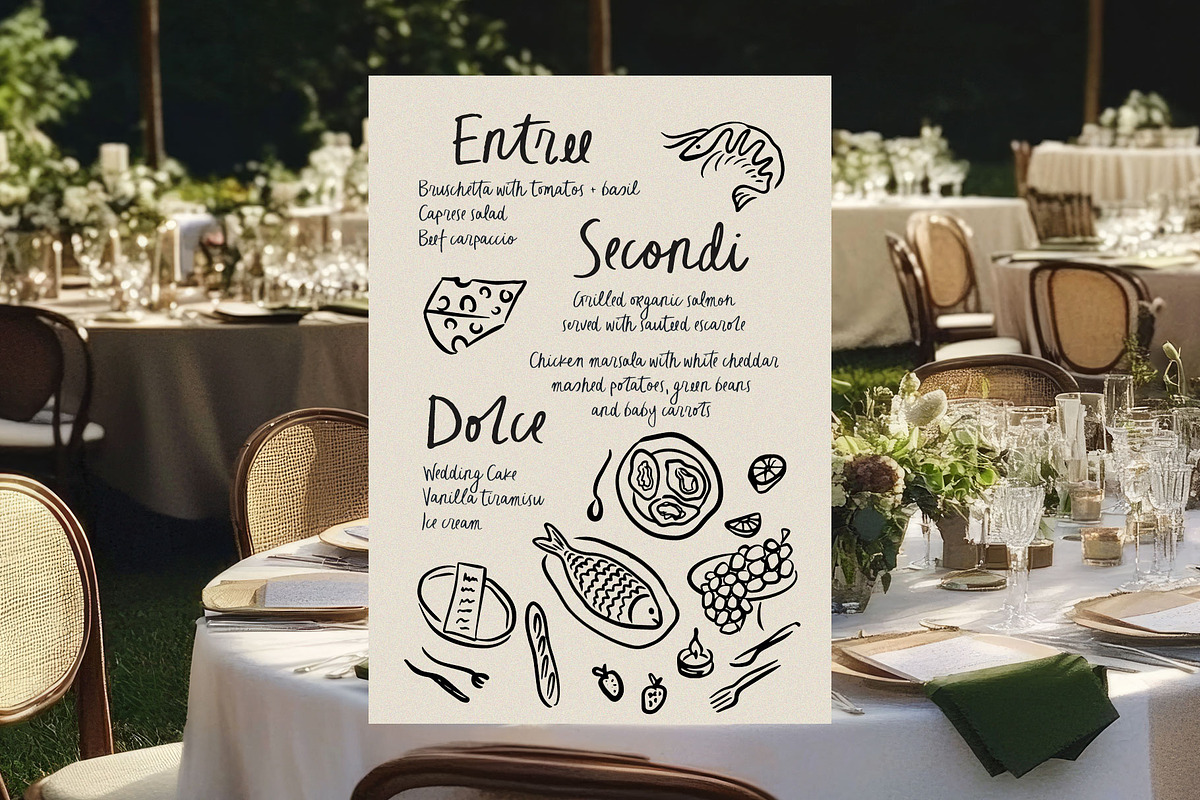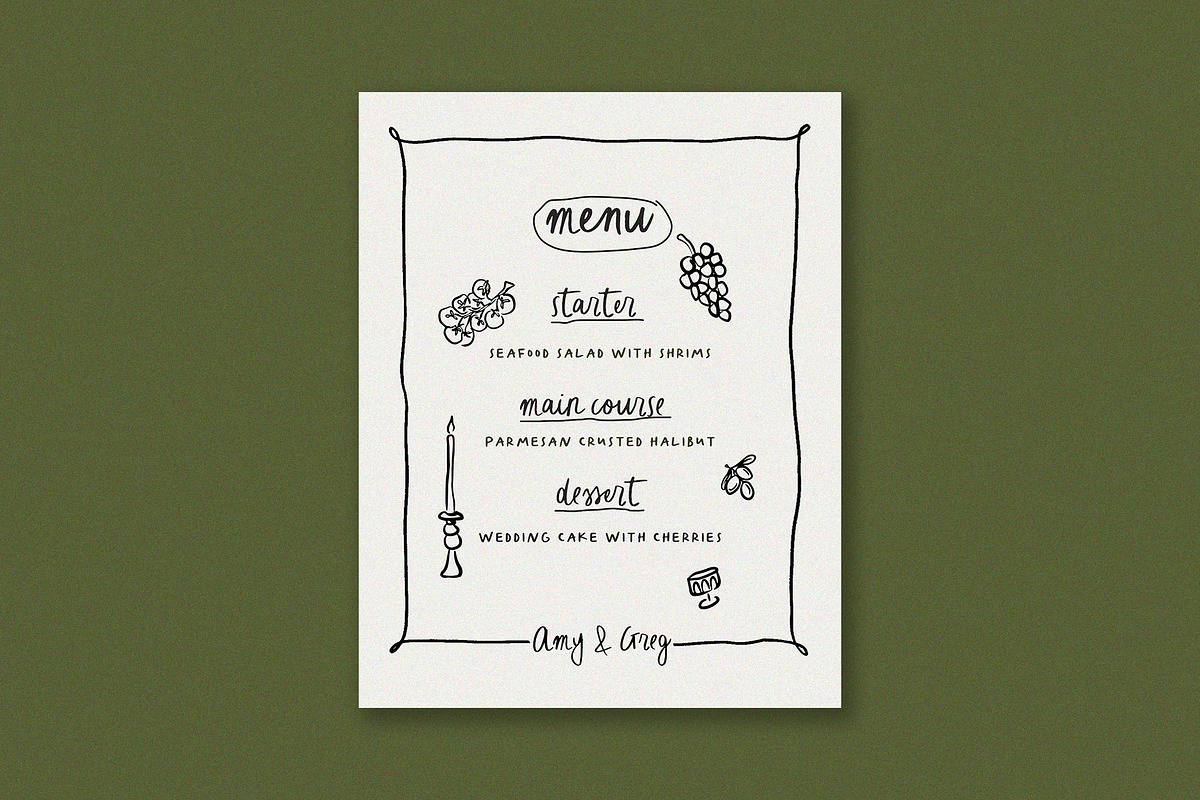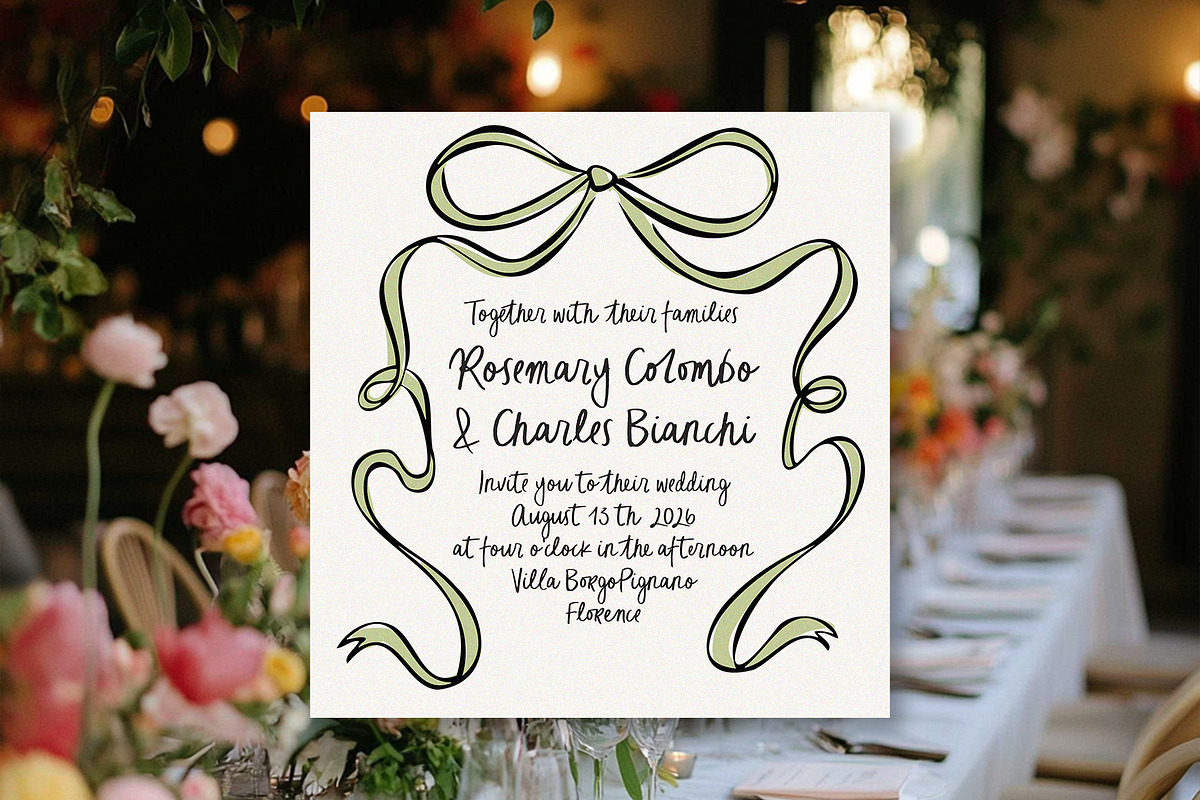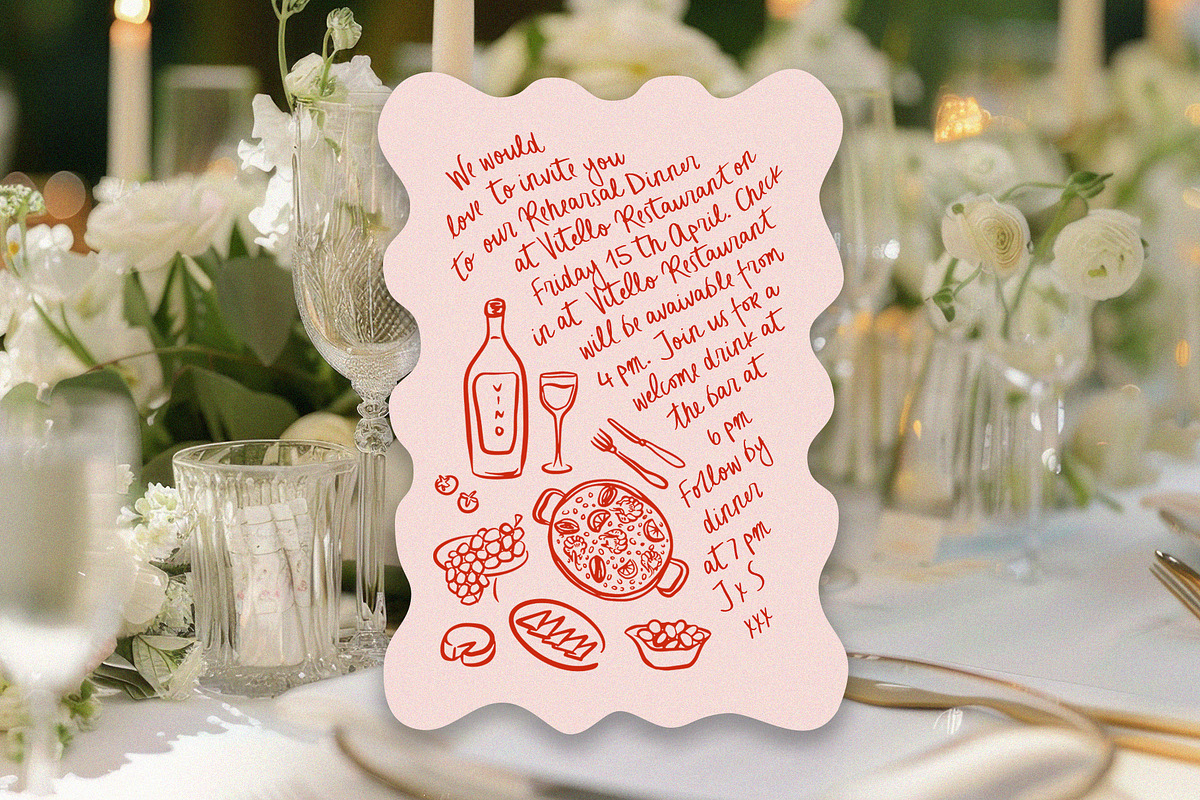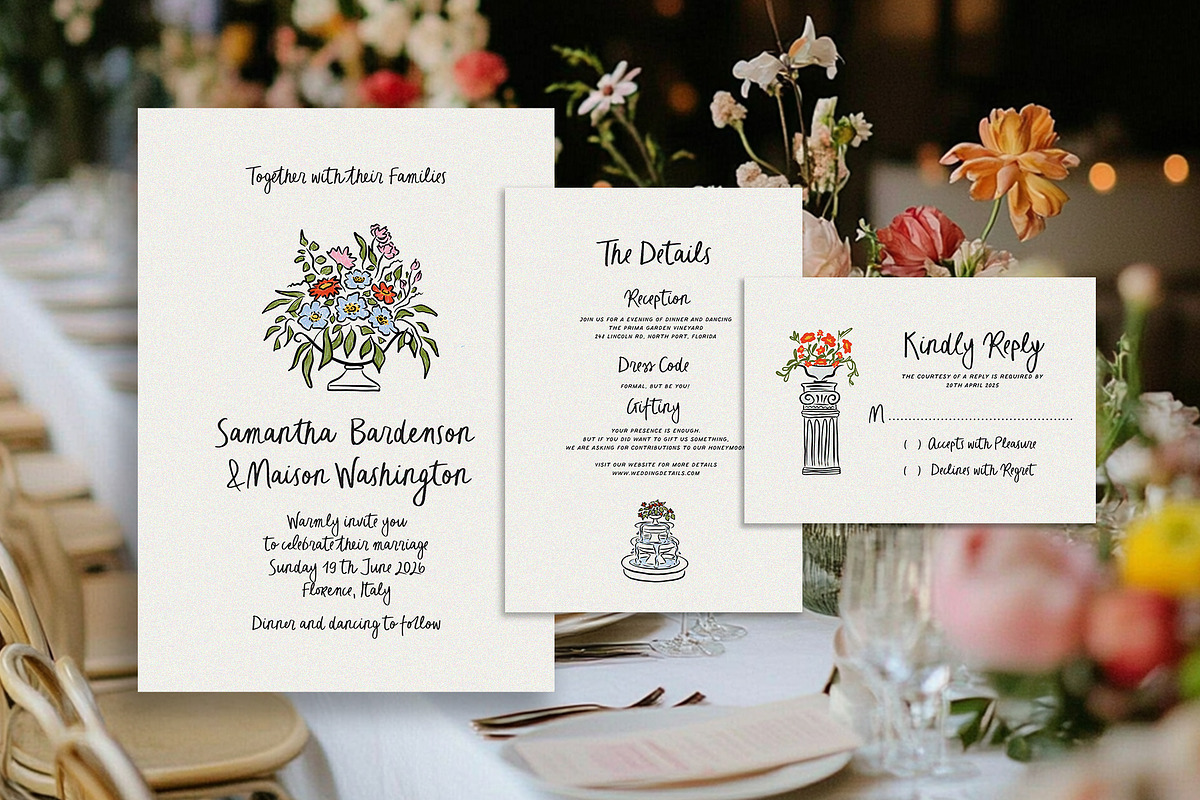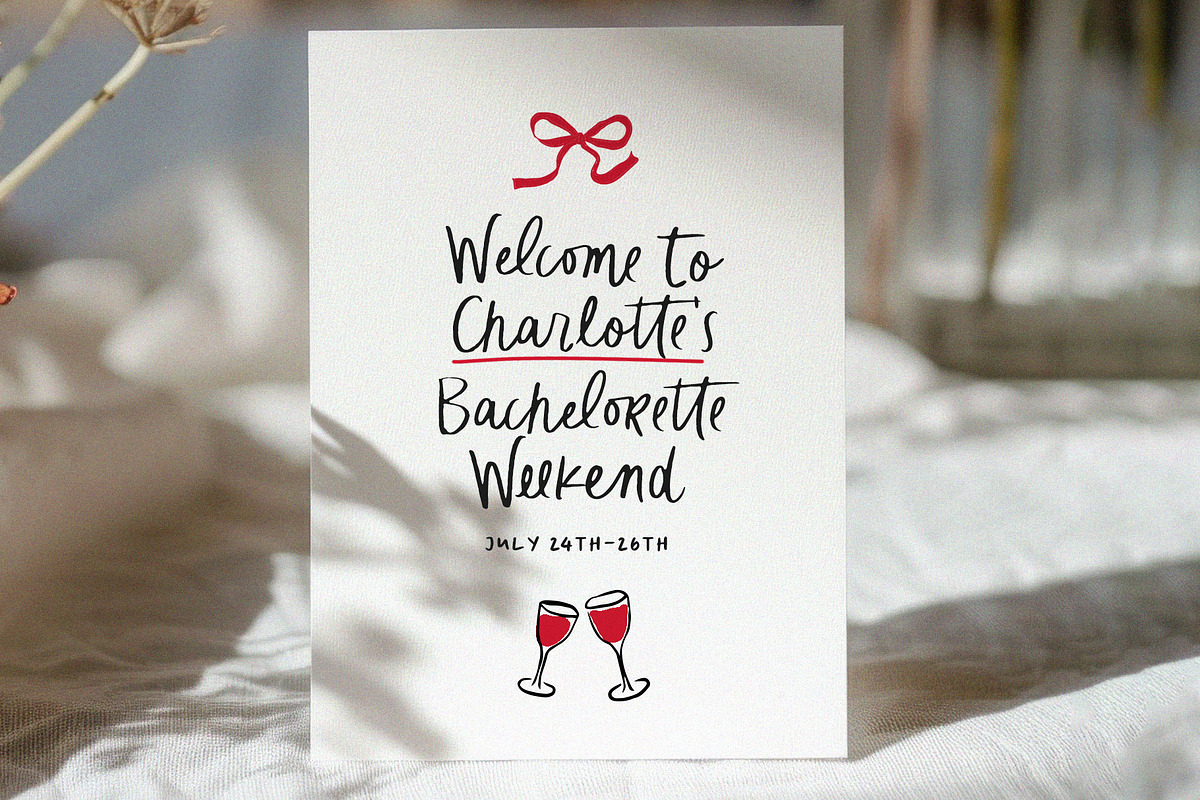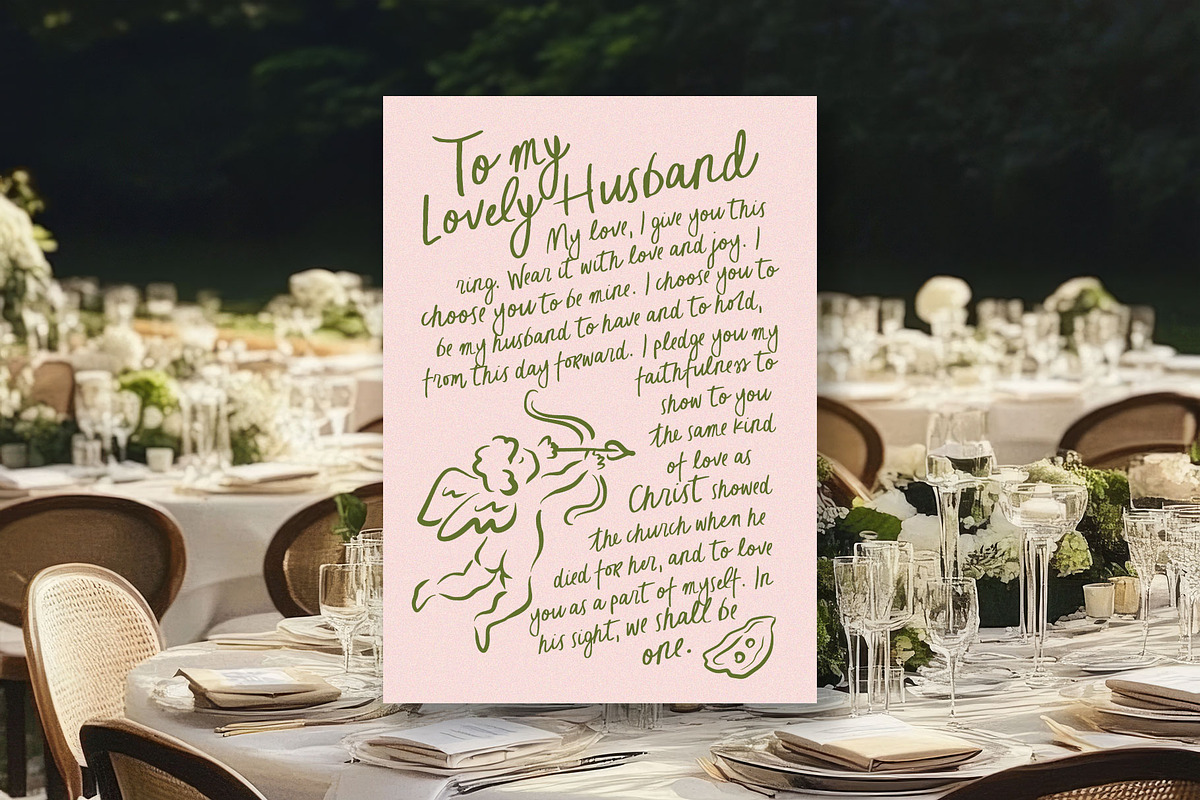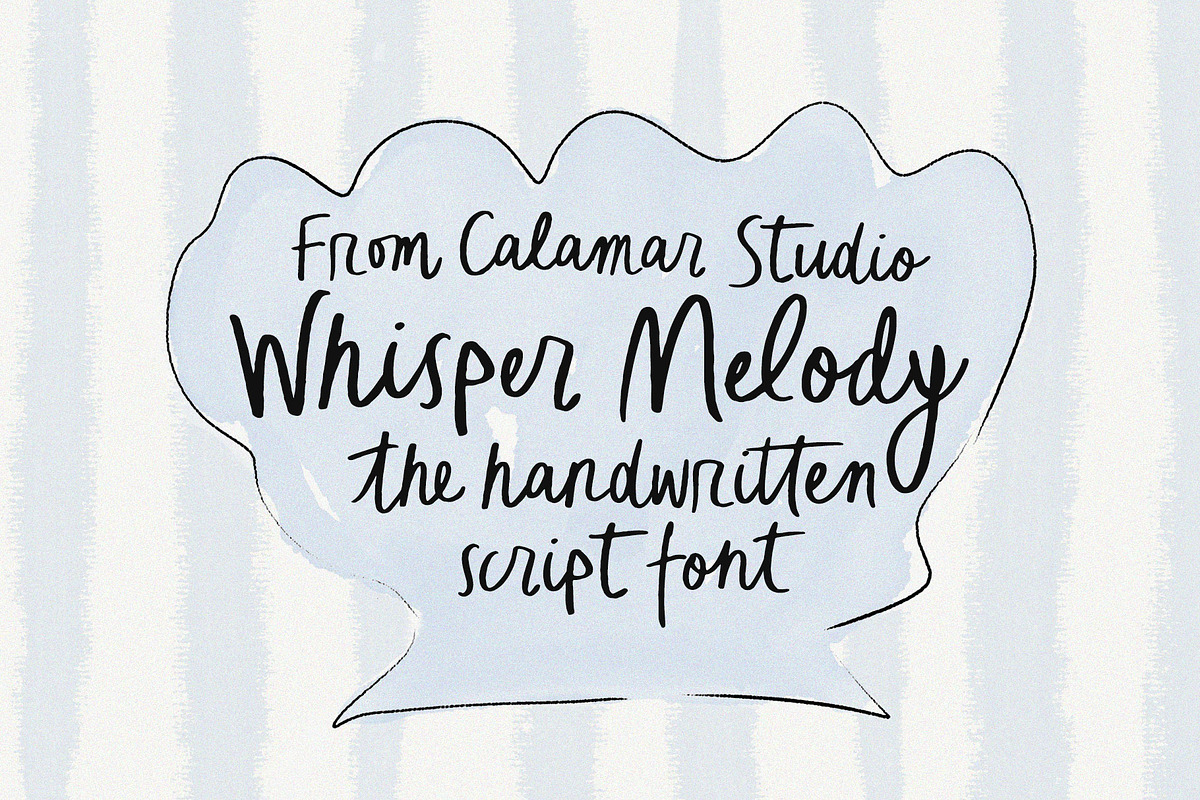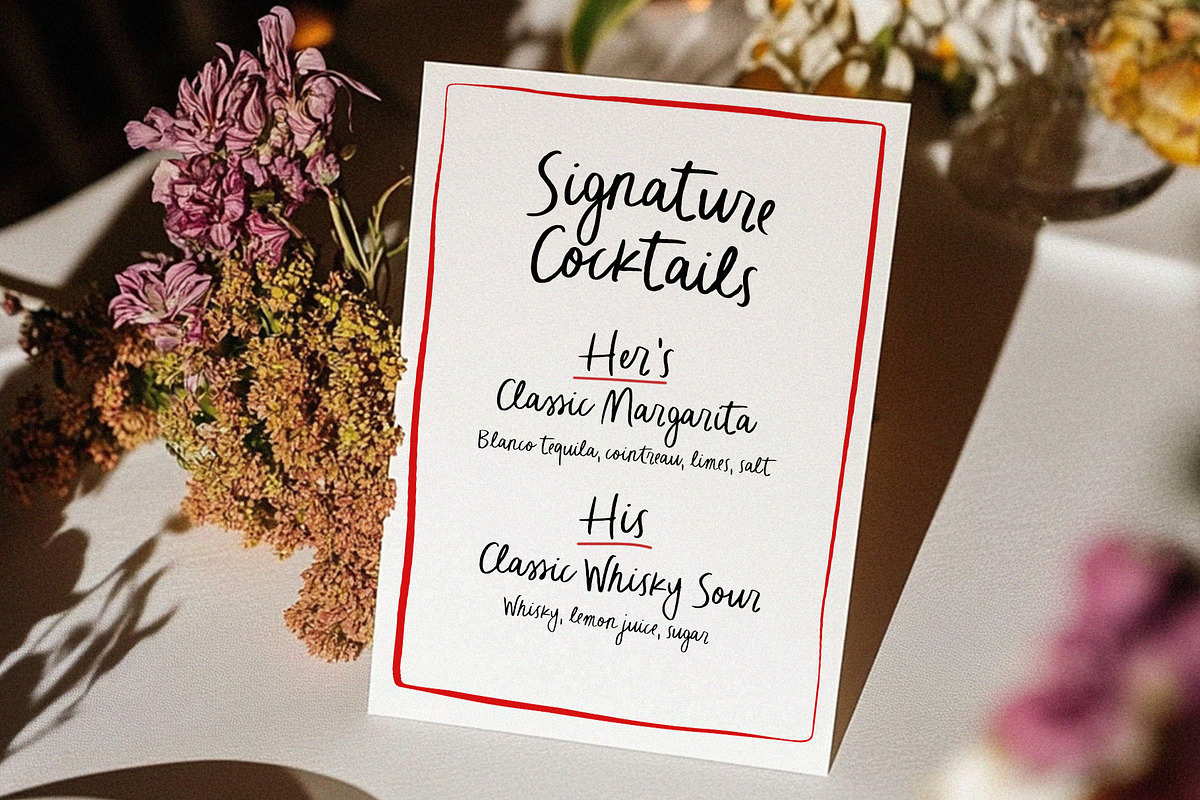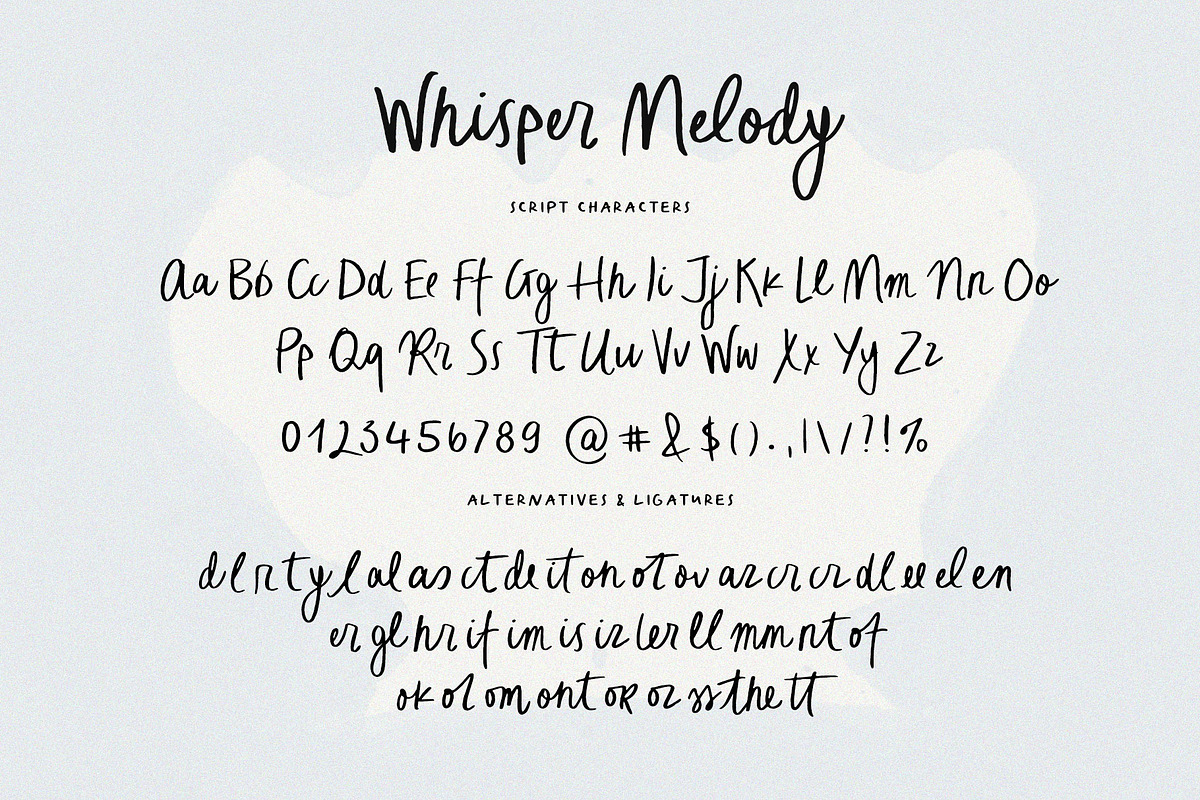
Whisper Melody Handwritten Font
The delightfully quirky handwritten font that ideally suited for a whimsical aesthetics of wedding invitations and stationery in 2025-2026 season.
The character set of "Whisper Melody" includes alternative letters and ligatures for the lowercase that brings a unique touch in every word.